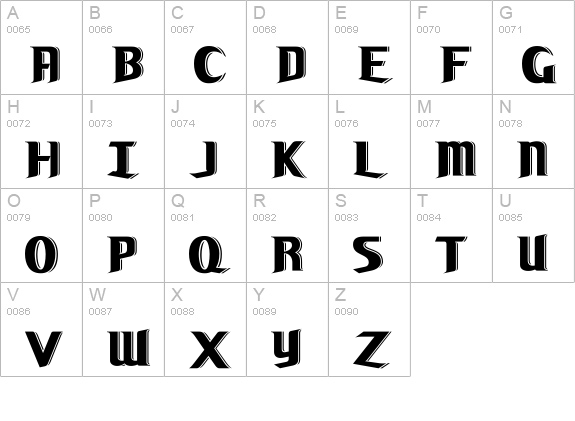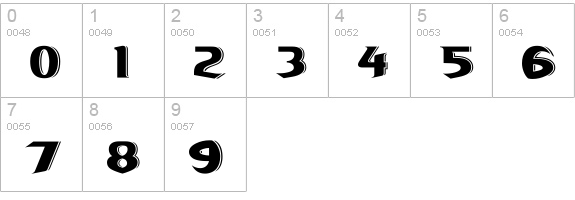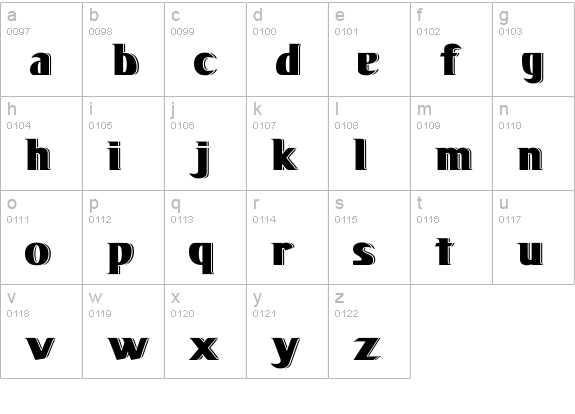
La Mesa Font Details
La Mesa font is a visually striking typeface that exudes elegance and sophistication. Its smooth curves and clean lines create a sense of balance and harmony, making it ideal for a wide range of design projects. This versatile font is perfect for both digital and print media, adding a touch of class to any piece of work. Whether you're designing a logo, creating a stylish website, or crafting a professional-looking brochure, La Mesa font will elevate your design to the next level. One of the standout features of La Mesa font is that it is completely free to use. It is freely available to download at FontsMarket.com, a reputable online platform for high-quality fonts. This means that you can access this exquisite typeface without any cost, making it an excellent choice for designers on a budget. With its wide range of weights and styles, La Mesa font offers endless possibilities for creative expression. Whether you prefer a bold and impactful look or a delicate and refined aesthetic, this font has got you covered. Its versatility allows you to experiment with different combinations to achieve the perfect visual balance for your project. In addition to its aesthetic appeal, La Mesa font also offers excellent legibility, ensuring that your message is conveyed in a clear and concise manner. Its carefully crafted letterforms and generous spacing make it easy to read even at small sizes, making it suitable for both headlines and body text. Overall, La Mesa font is a timeless and elegant typeface that will elevate your design to new heights. With its free availability on FontsMarket.com, there's no reason not to give this beautiful font a try. Download La Mesa font today and let your creativity soar.